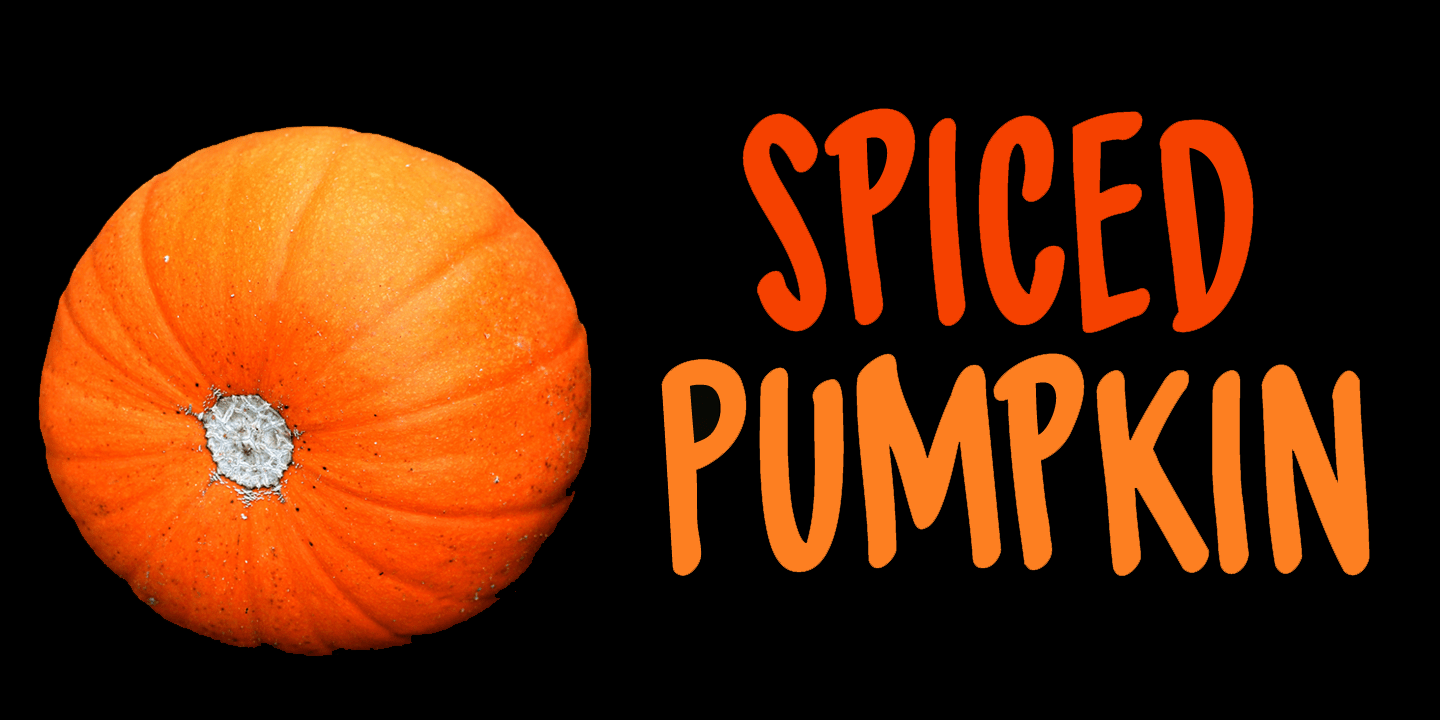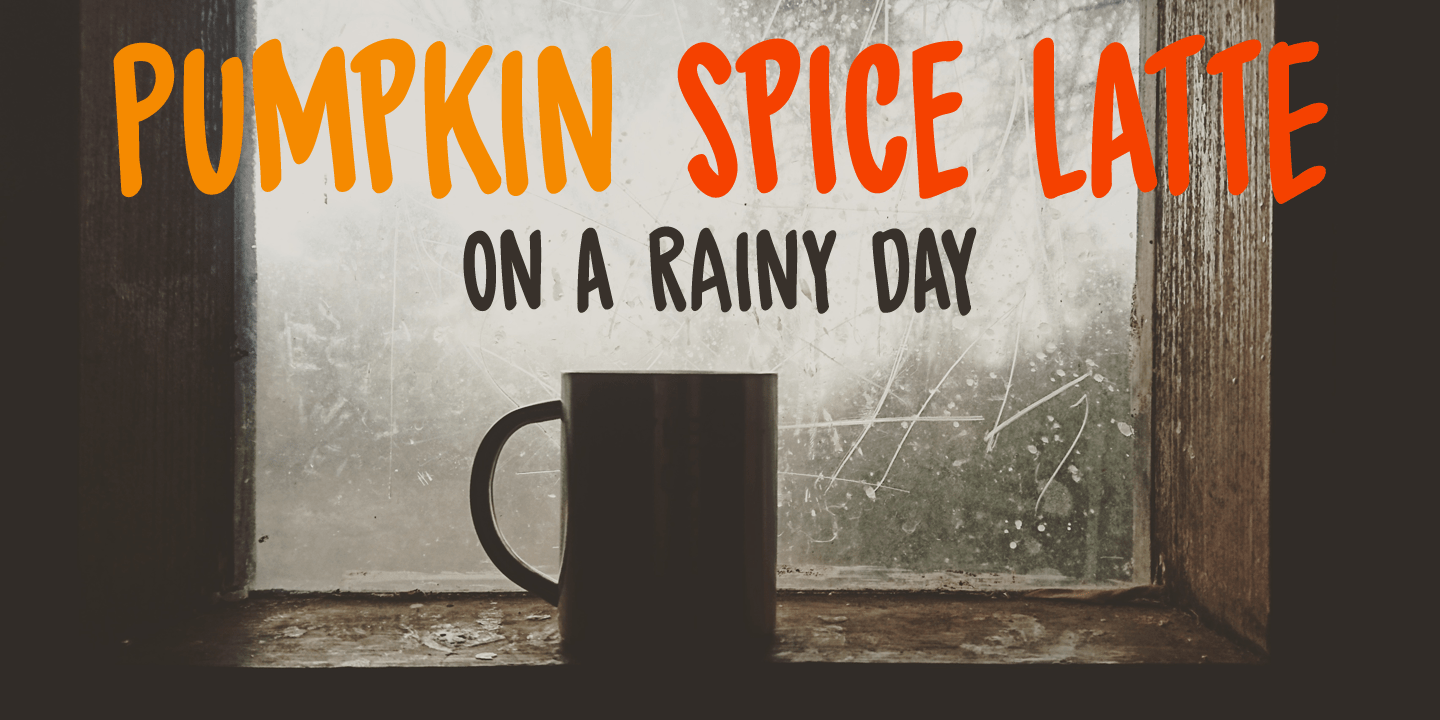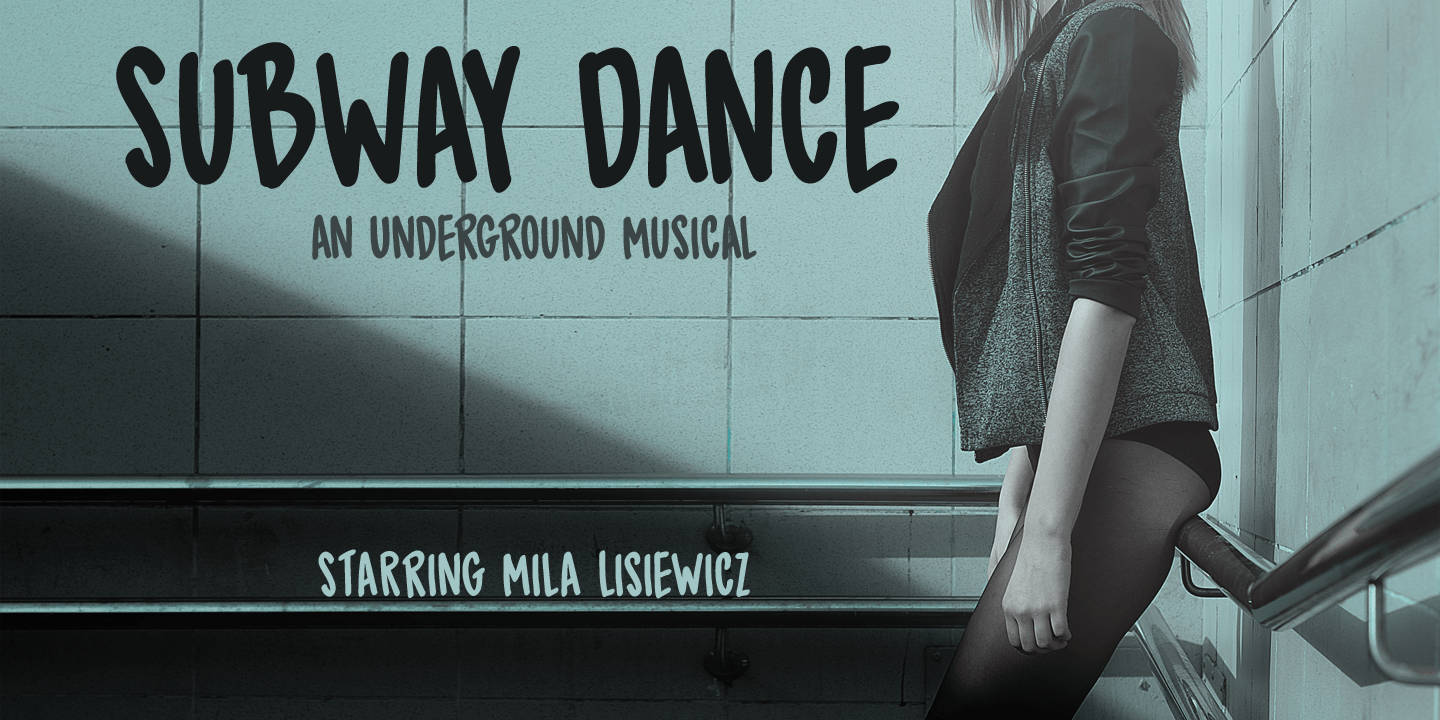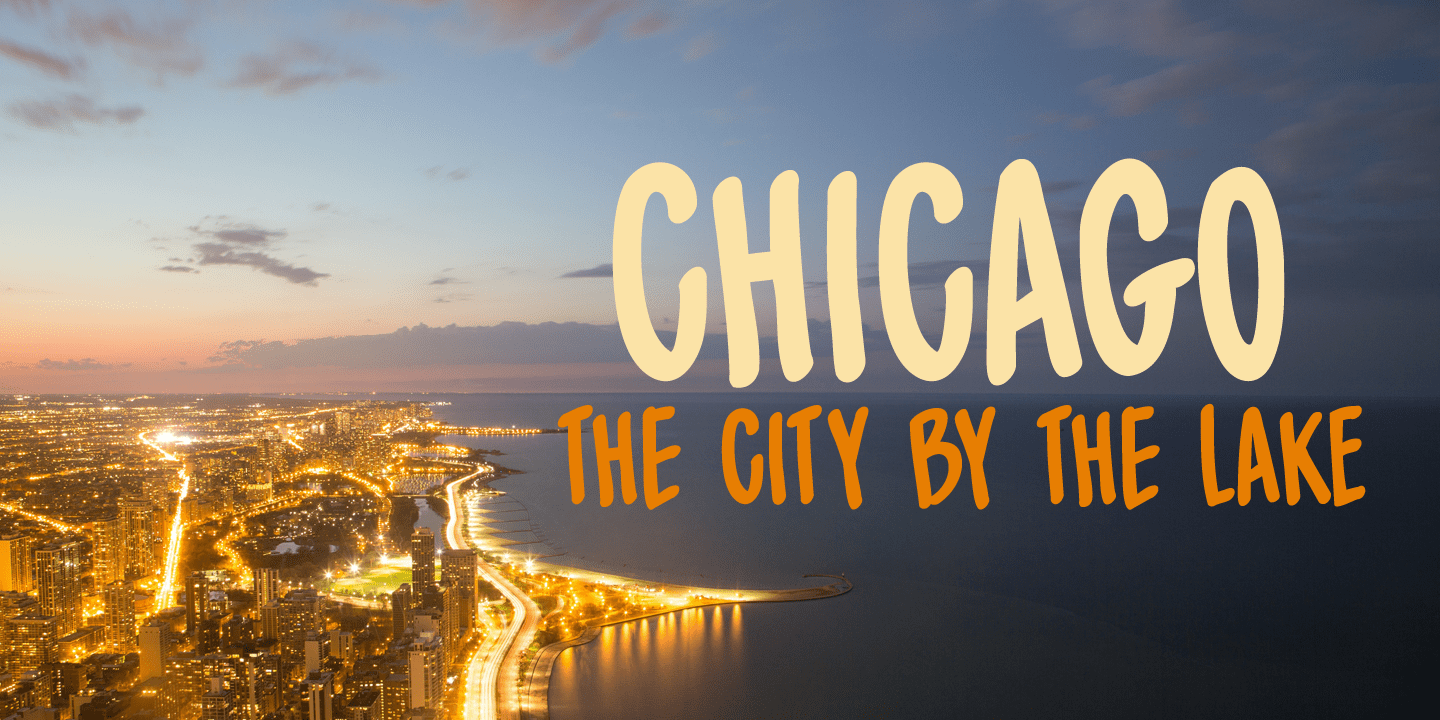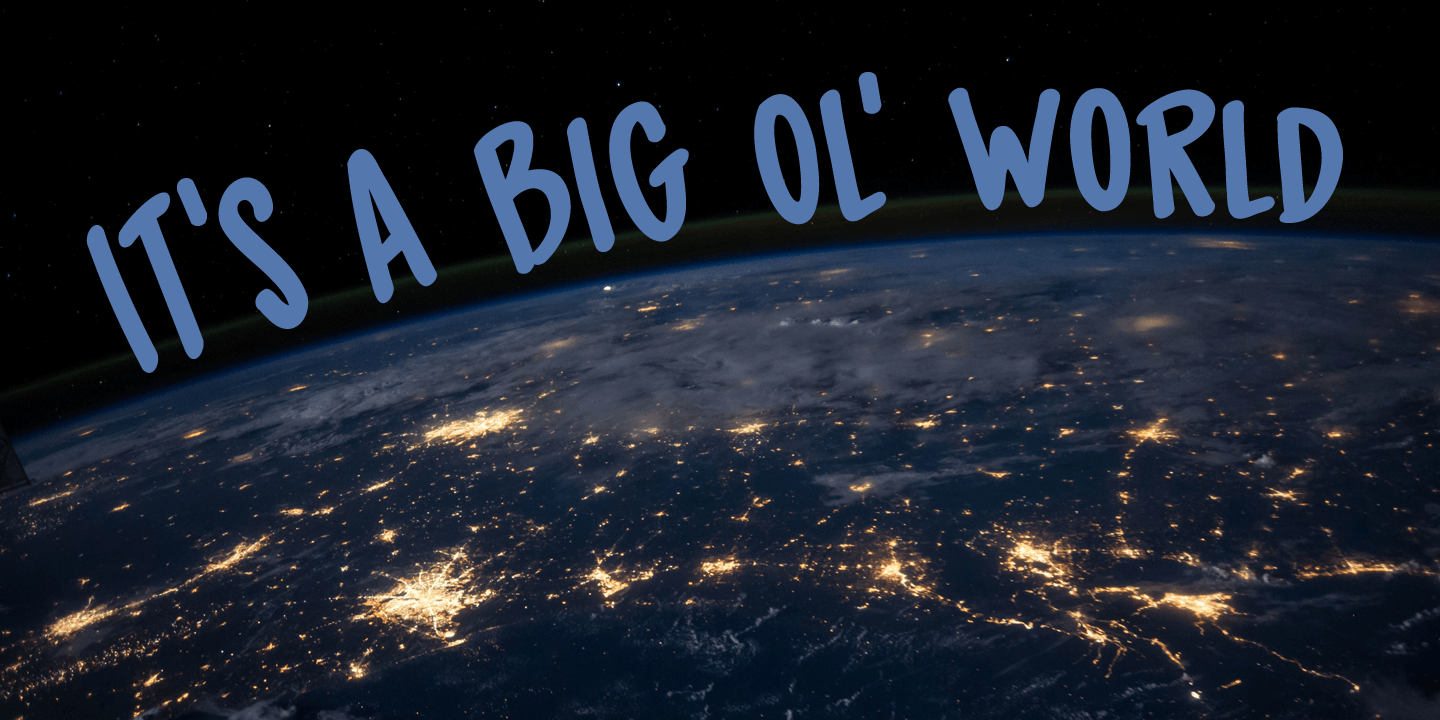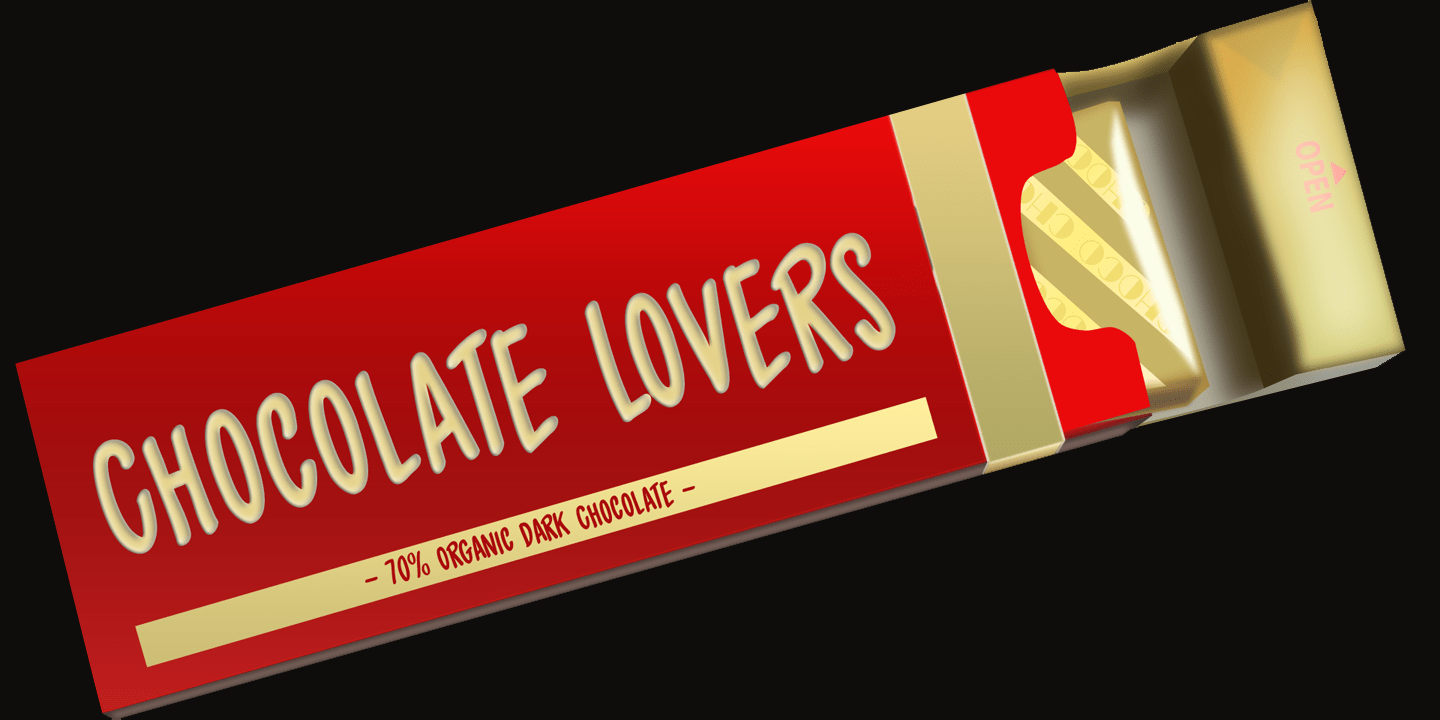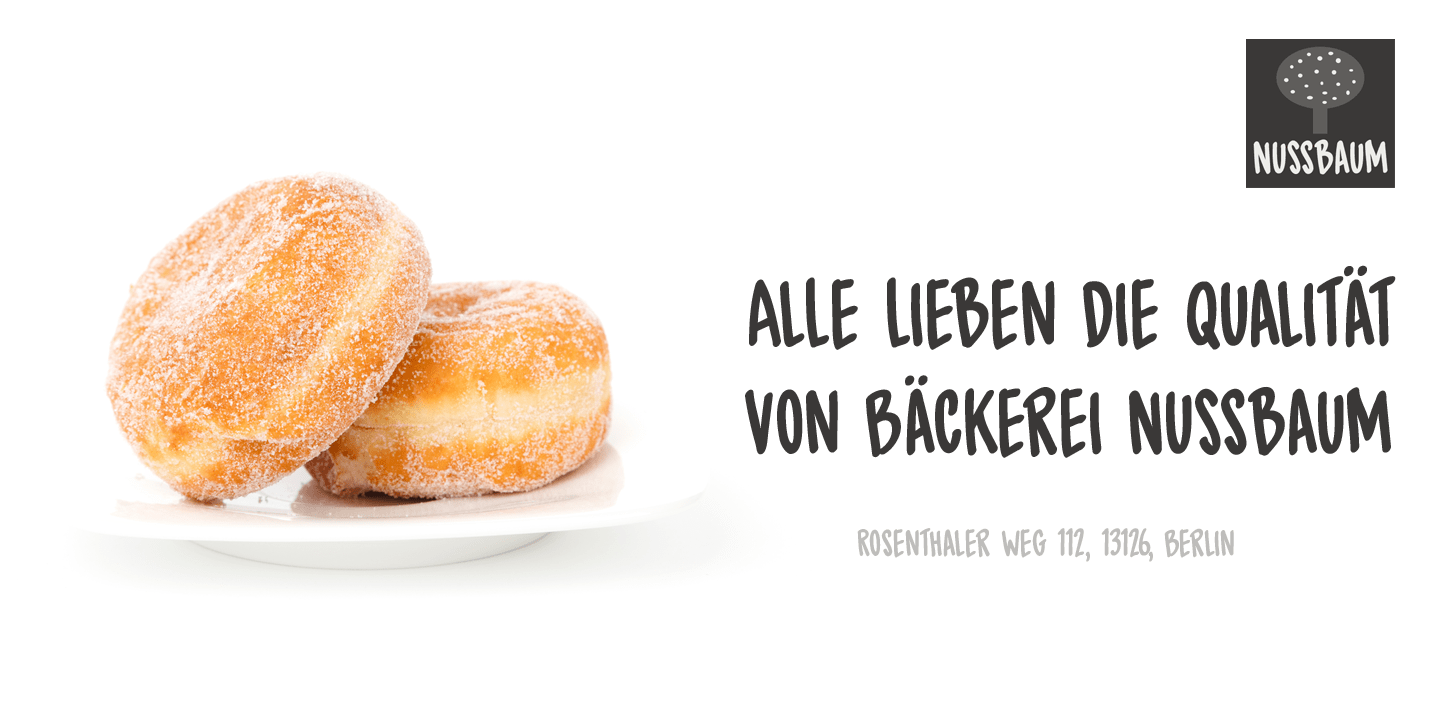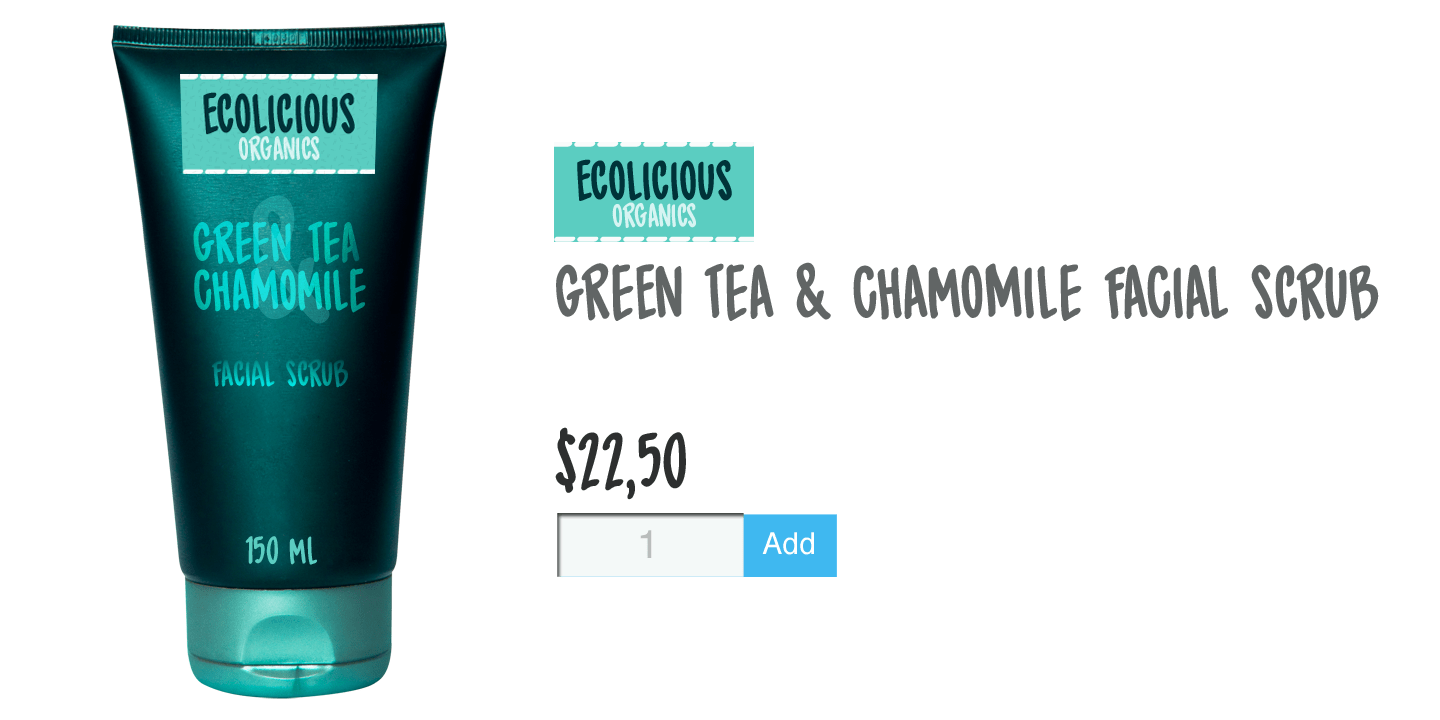
Spiced Pumpkin
I don't know about the weather on your side of the globe, but here it is mighty cold! I was trying out a new technique of font-making AND I was craving a pumpkin spice latte, so I named this font Spiced Pumpkin. Spiced Pumpkin is a rounded, thin, all caps typeface with a heart warming, ice melting attitude. It looks good on product packaging, book covers and postcards, so (in other words) give it a whirl and see what you'll end up with!